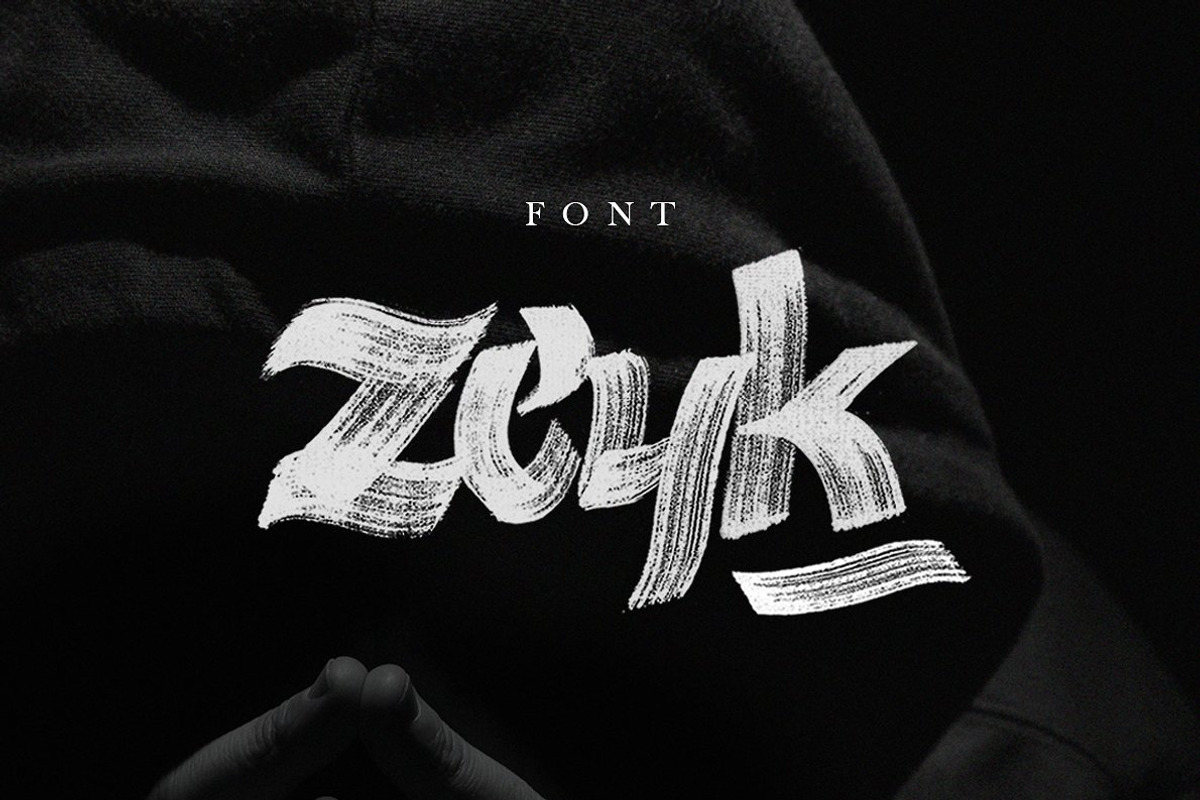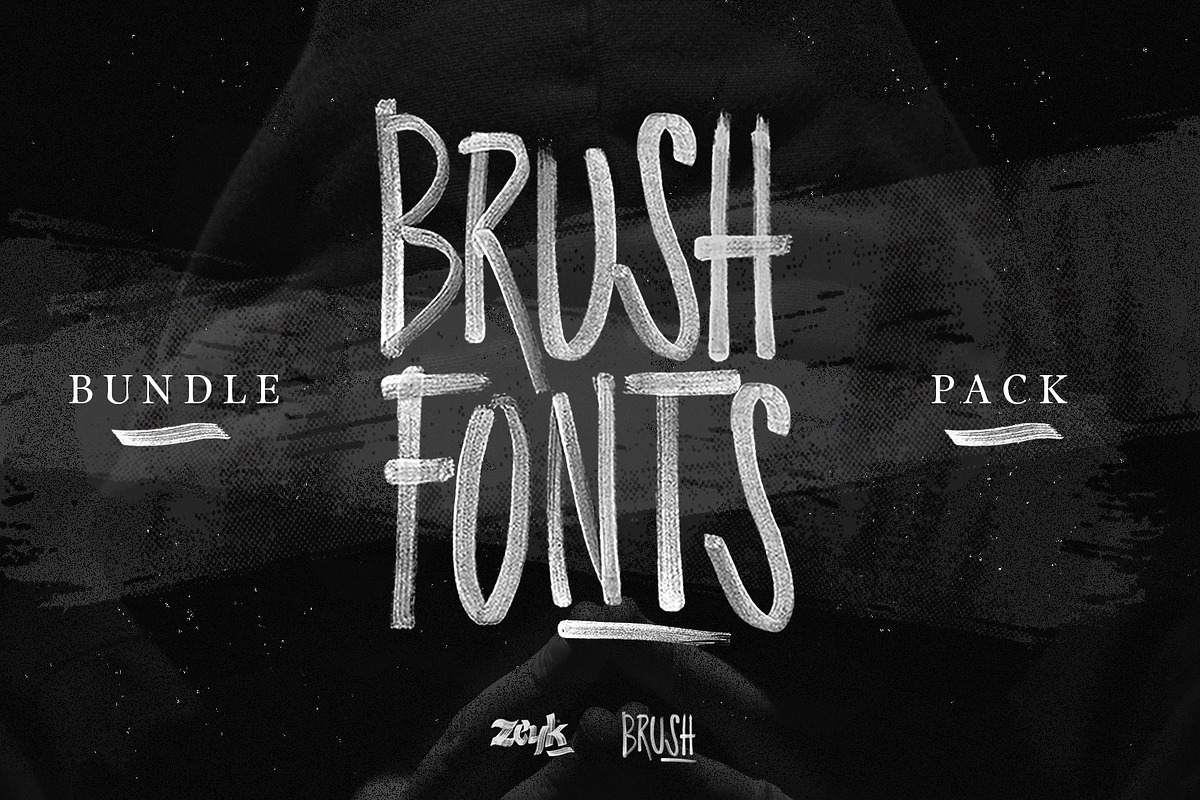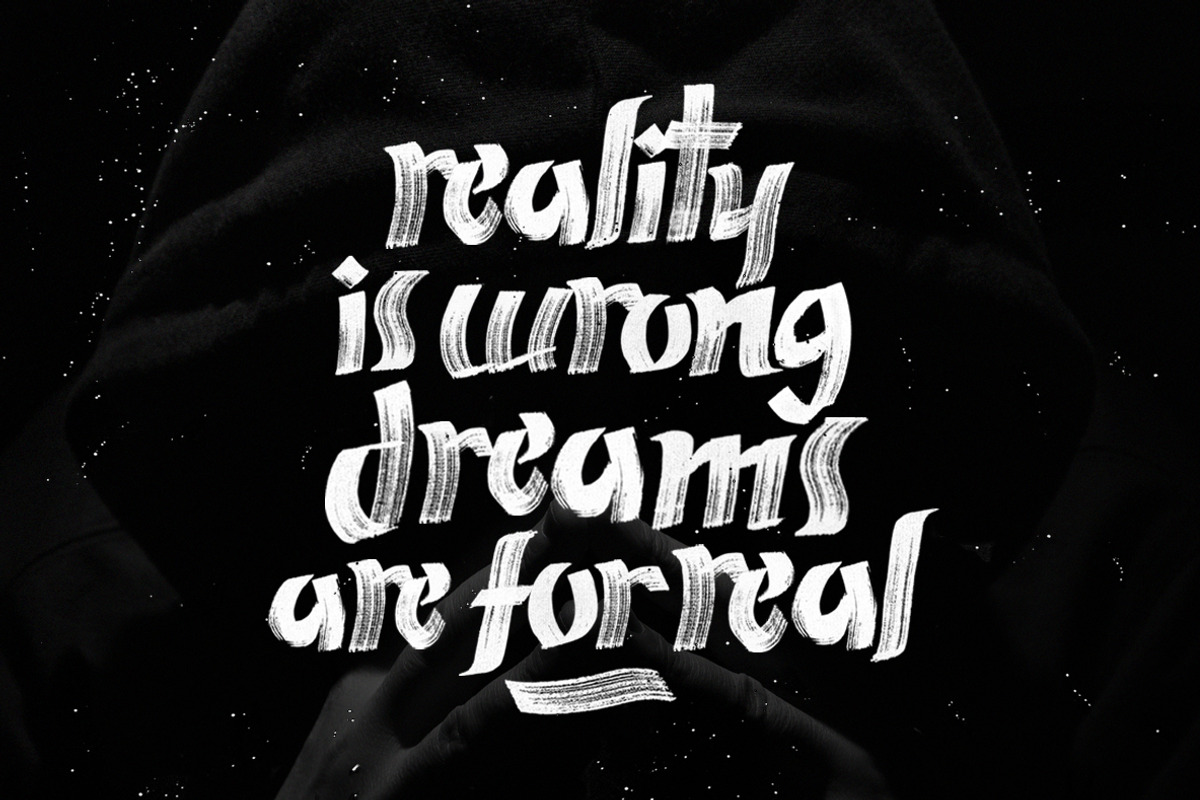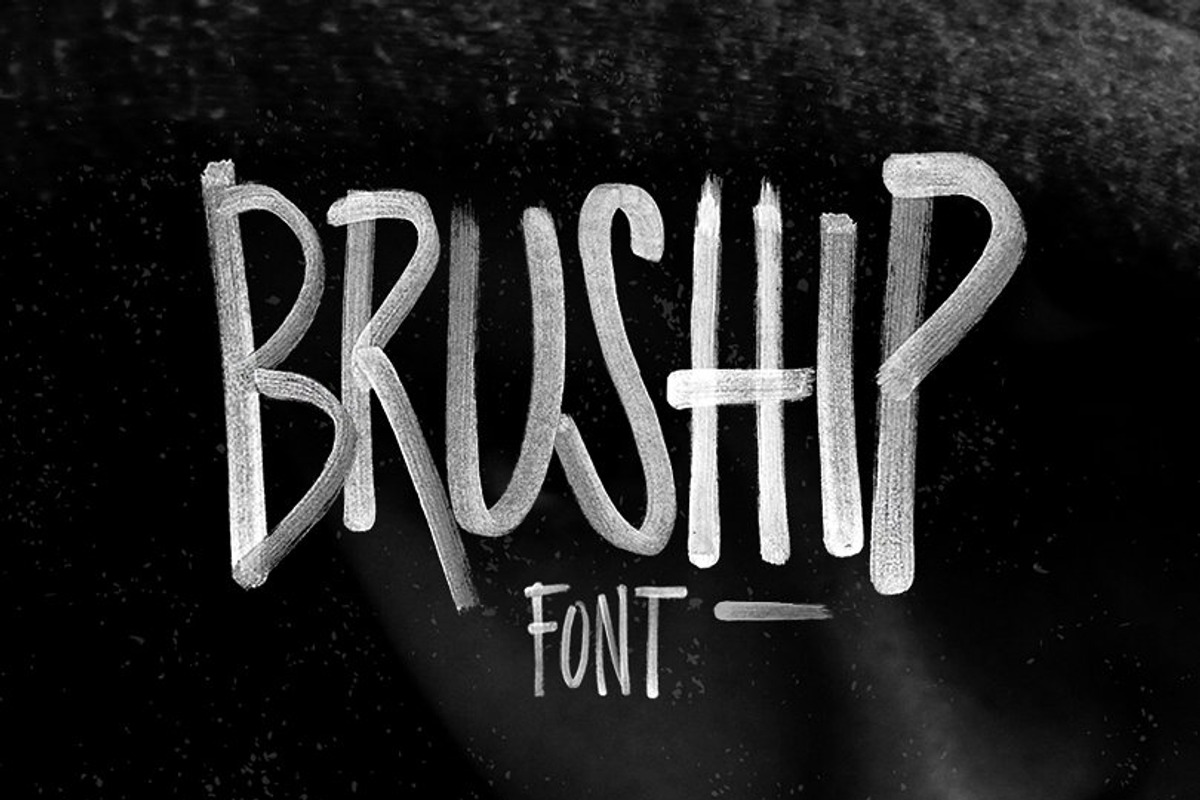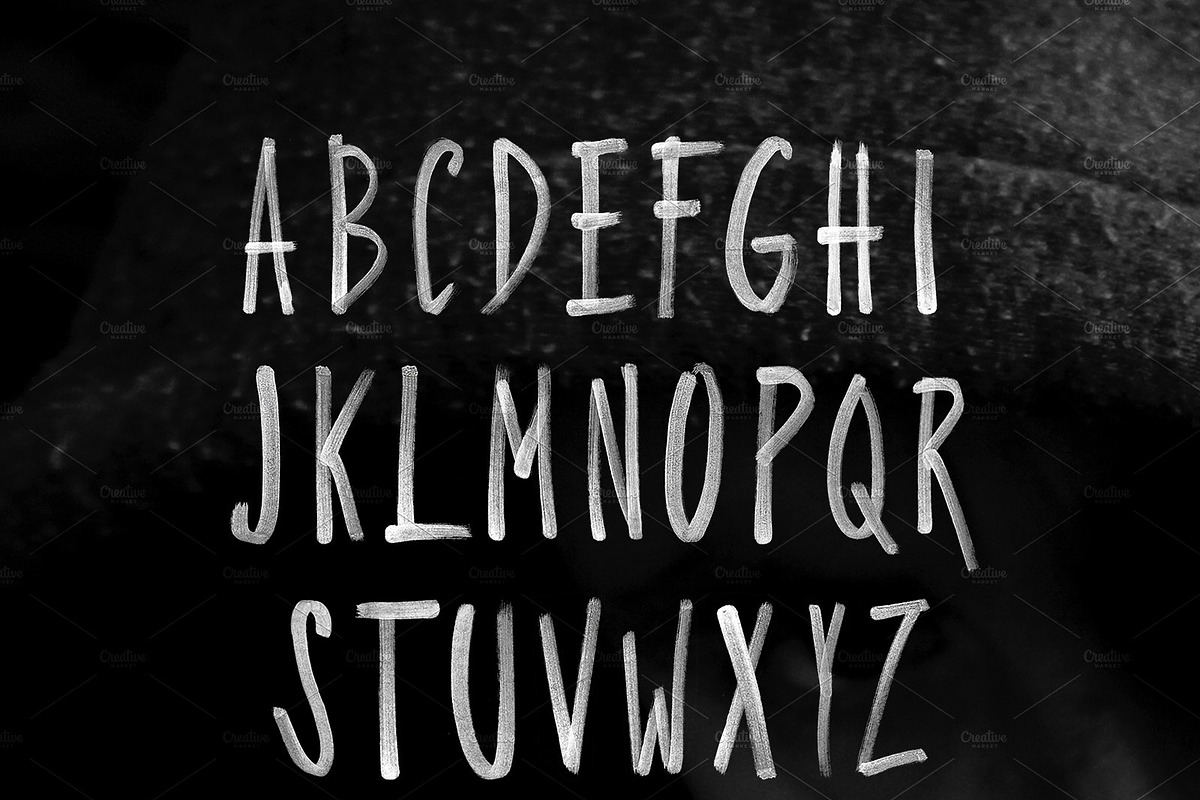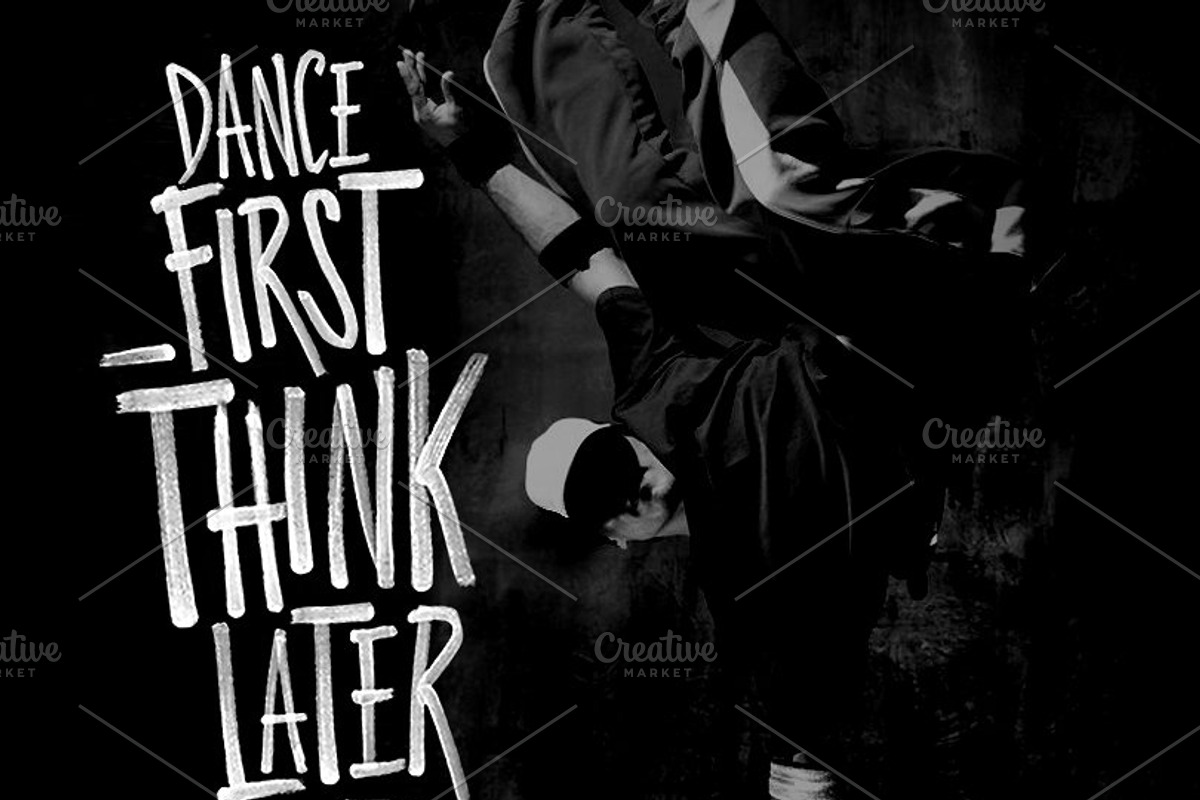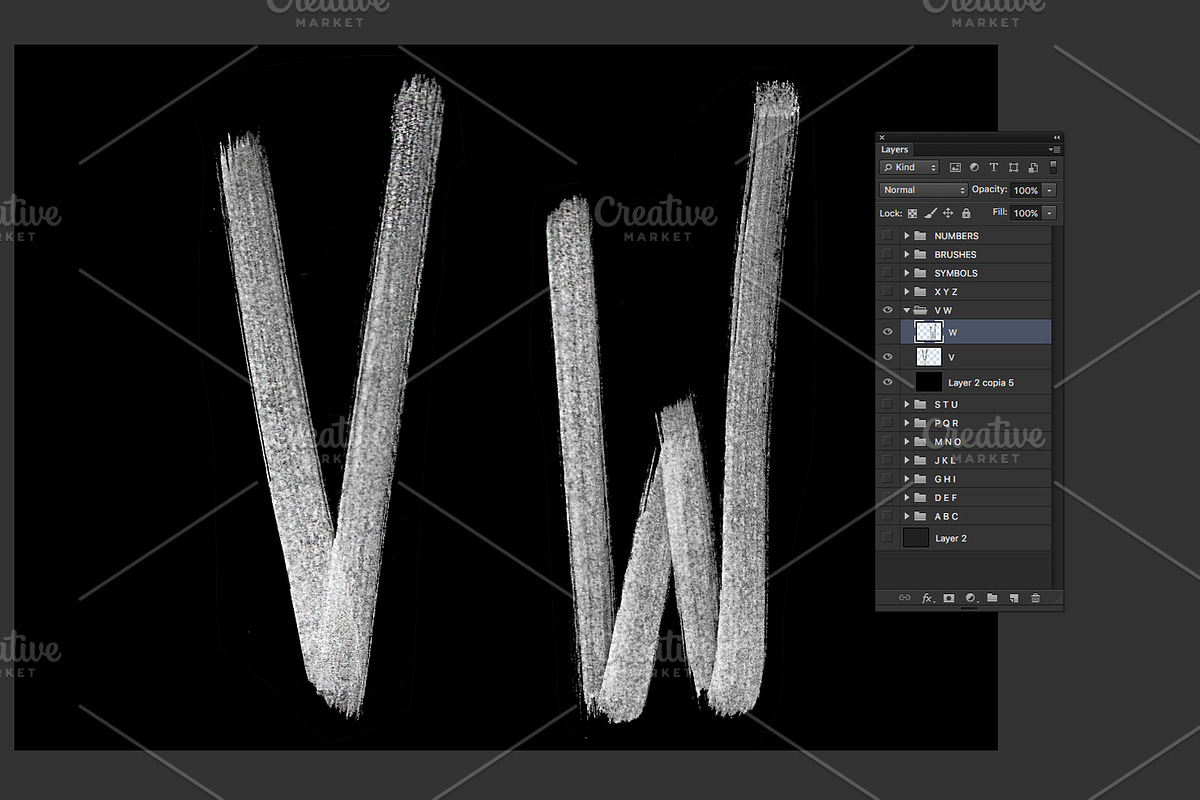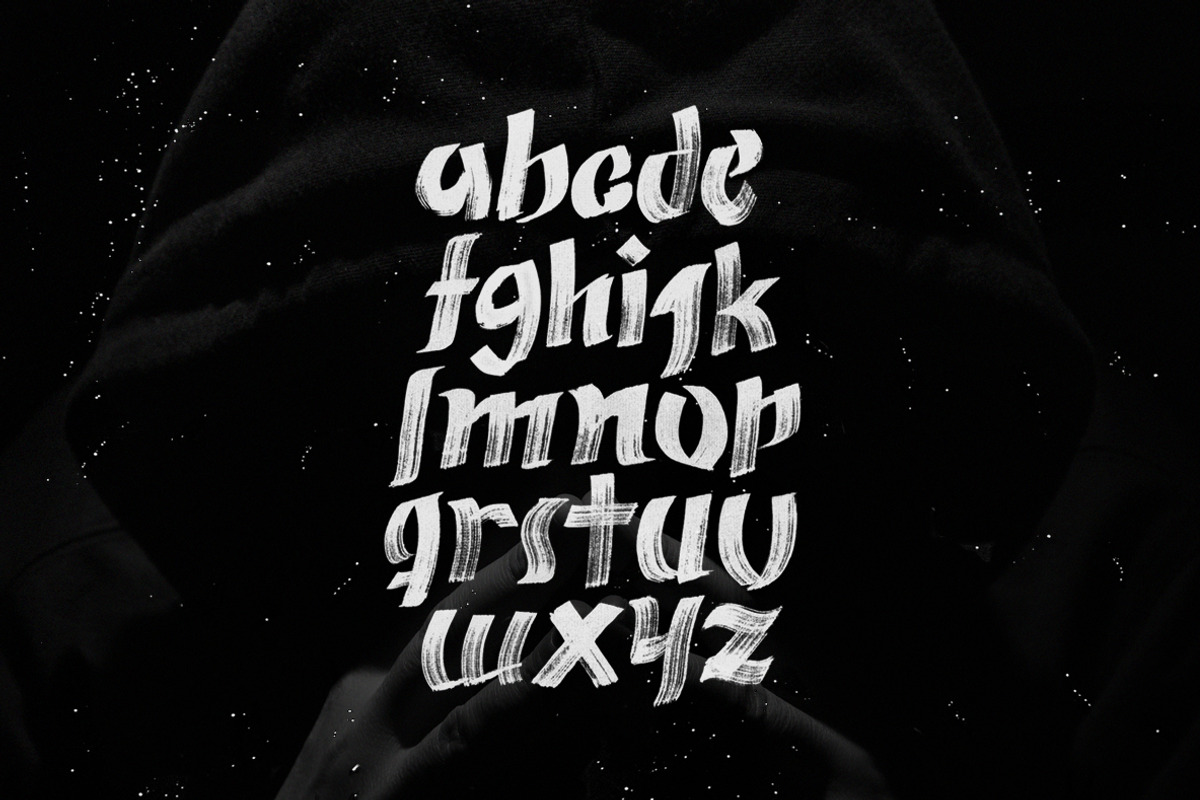
Brush Fonts Pack / Bundle
- This package is amazing, very suitable for cards, branding materials, quotes, posters, and more!
- Bruship Regular
- Zeyk font Regular
Why Brush Fonts Pack / Bundle is worth a look
Brush Fonts Pack / Bundle by JotaPe / JNP Studio fits naturally into Branding, posters, packaging, typography.